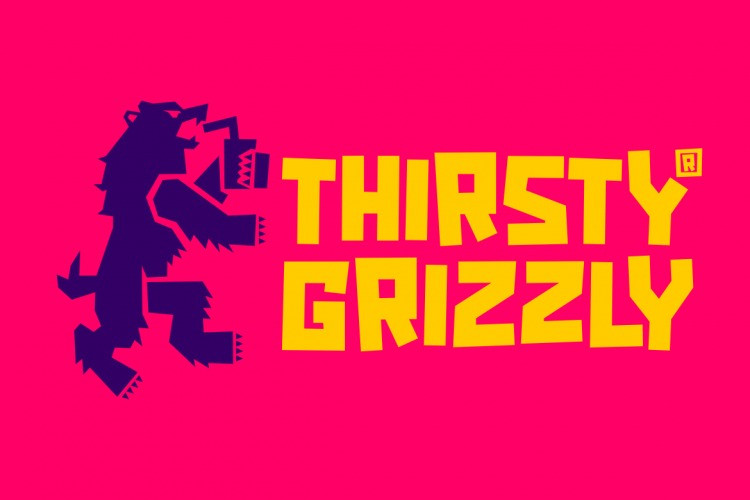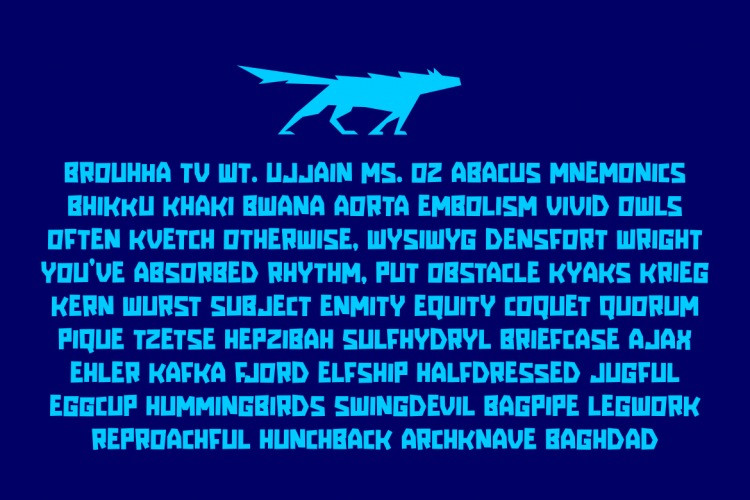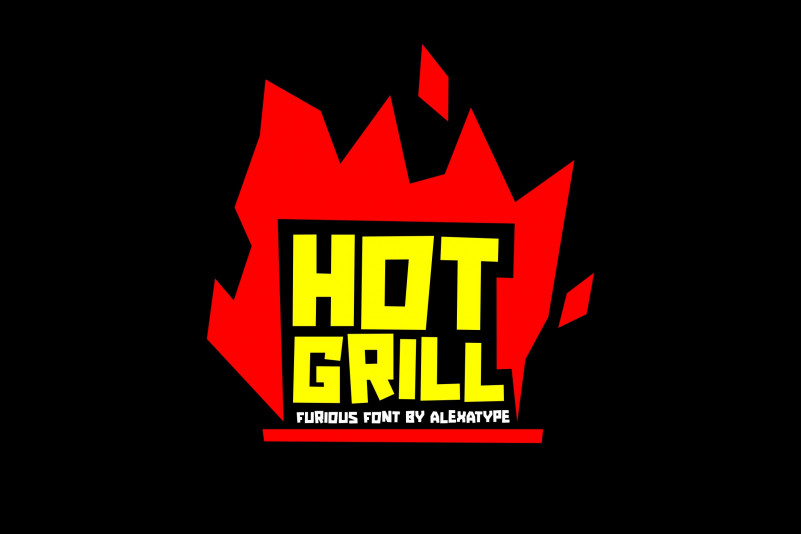
La Reformada Display Font
La Reformada Font, It would be a perfect choice to design fun ,Comic Cartoon affiches, logos, t-shirt and magazine prints, eye-pleasing typographic designs and more.